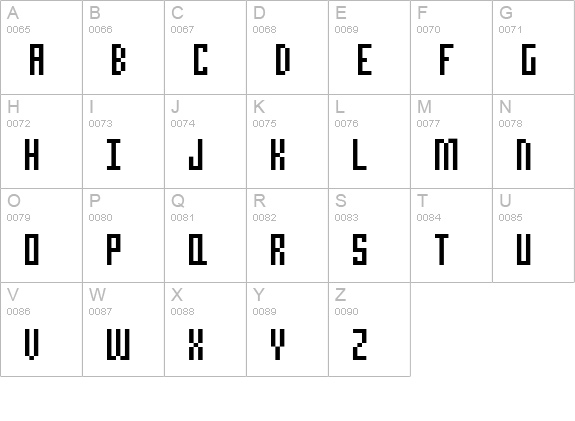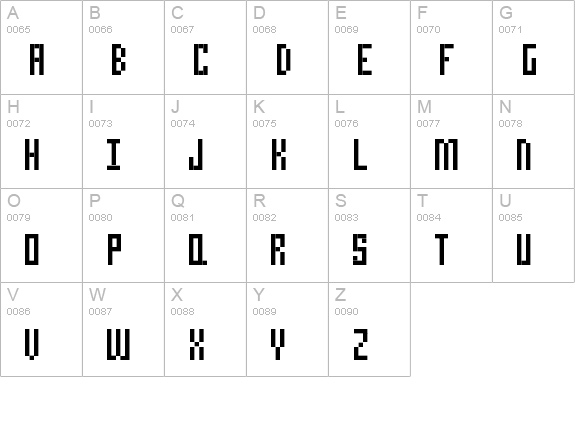
Pixel Classic Font Details
Introducing Pixel Classic, a timeless font that takes you back to the golden age of retro gaming. This font captures the essence of pixelated graphics, perfectly mimicking the style of classic video games from the 80s and 90s. With its clean and sharp lines, Pixel Classic brings a nostalgic feel to any project, whether it's a website, logo, or print design. What makes Pixel Classic even more amazing is that it's completely free! Yes, you read that right. This incredible font is freely available to download at FontsMarket.com. Now you can add a touch of vintage gaming charm to your creations without breaking the bank. Pixel Classic's versatility is another reason to love it. Whether you're designing a poster for a gaming event or creating a retro-inspired video game, this font adapts effortlessly to any context. Its bold and distinctive characters stand out, ensuring maximum impact and readability. With Pixel Classic, you can unleash your creativity and bring back the magic of classic gaming. So why wait? Head over to FontsMarket.com and download this remarkable font for free. Get ready to embark on a nostalgic journey and let Pixel Classic transport you to the pixelated wonderland of yesteryears.